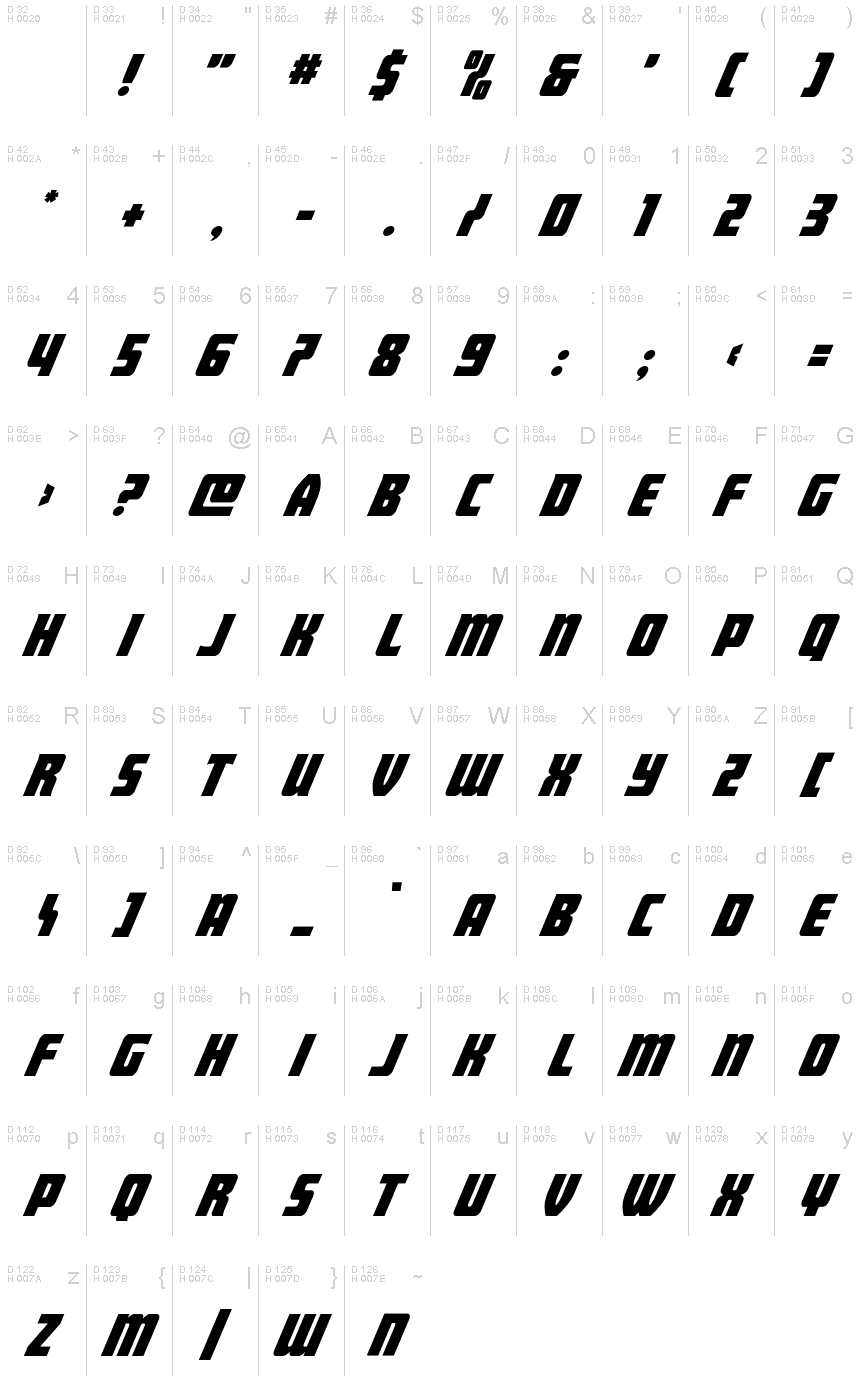
Intrepid Spear Super-Italic
Intrepid Spear Super-Italic, a cutting-edge creation by Iconian Fonts, stands out with its bold techno aesthetics and extra-condensed width. This member of the Intrepid Spear font family commands attention through its dynamic slant and impactful weight, embodying strength and movement within each letterform.
The striking design of Intrepid Spear Super-Italic is not just visually arresting but also versatile for various creative endeavors. Its display type classification makes it a prime choice for titles, headers, and any project requiring a dose of modernity and edge. The font balances readability with style, ensuring that your message is delivered with a memorable punch.
With two sub-families—Regular and Lower Case—Intrepid Spear offers designers the flexibility to craft cohesive yet diverse visual narratives. Whether employed in gaming interfaces, tech branding, or futuristic concept art, this font injects projects with an unmistakable aura of innovation.
Dive into the world of Intrepid Spear Super-Italic where typography meets technology in an unforgettable dance of design prowess.